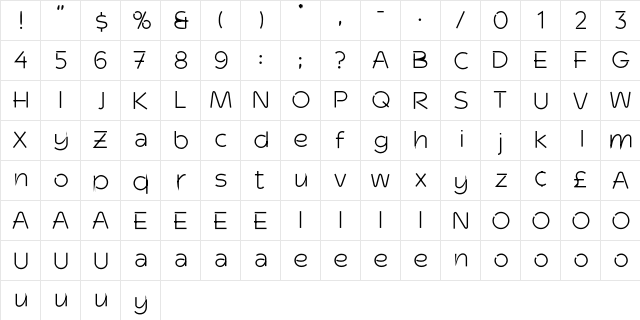
Moulinrouge Regular Font Preview
Moulinrouge Regular
Design Context for Moulinrouge Typeface
Moulinrouge is a composed and adaptable typeface that performs quietly and consistently across a wide range of design contexts.